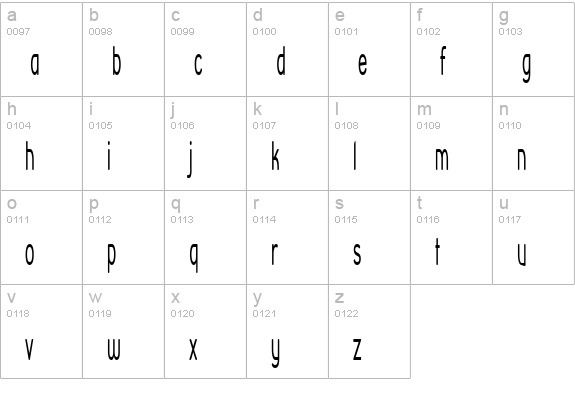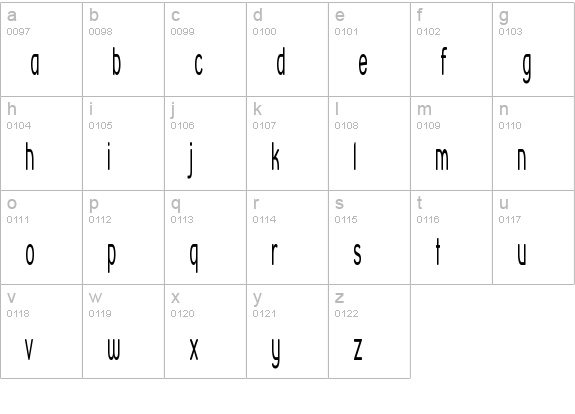
Street Corner Narrower Font Details
Introducing Street Corner Narrower font, a modern and stylish typeface that will add a touch of sophistication to any design project. This unique font features sleek lines and sharp angles, making it perfect for headlines, logos, and branding materials. With its contemporary look and clean design, Street Corner Narrower font is sure to make a statement wherever it is used. Whether you're working on a website, poster, or packaging design, this font will help your text stand out and grab attention. Best of all, Street Corner Narrower font is available for free download at FontsMarket.com. So you can easily add this versatile font to your collection without breaking the bank. Don't miss out on the opportunity to enhance your designs with the sleek and stylish Street Corner Narrower font today!